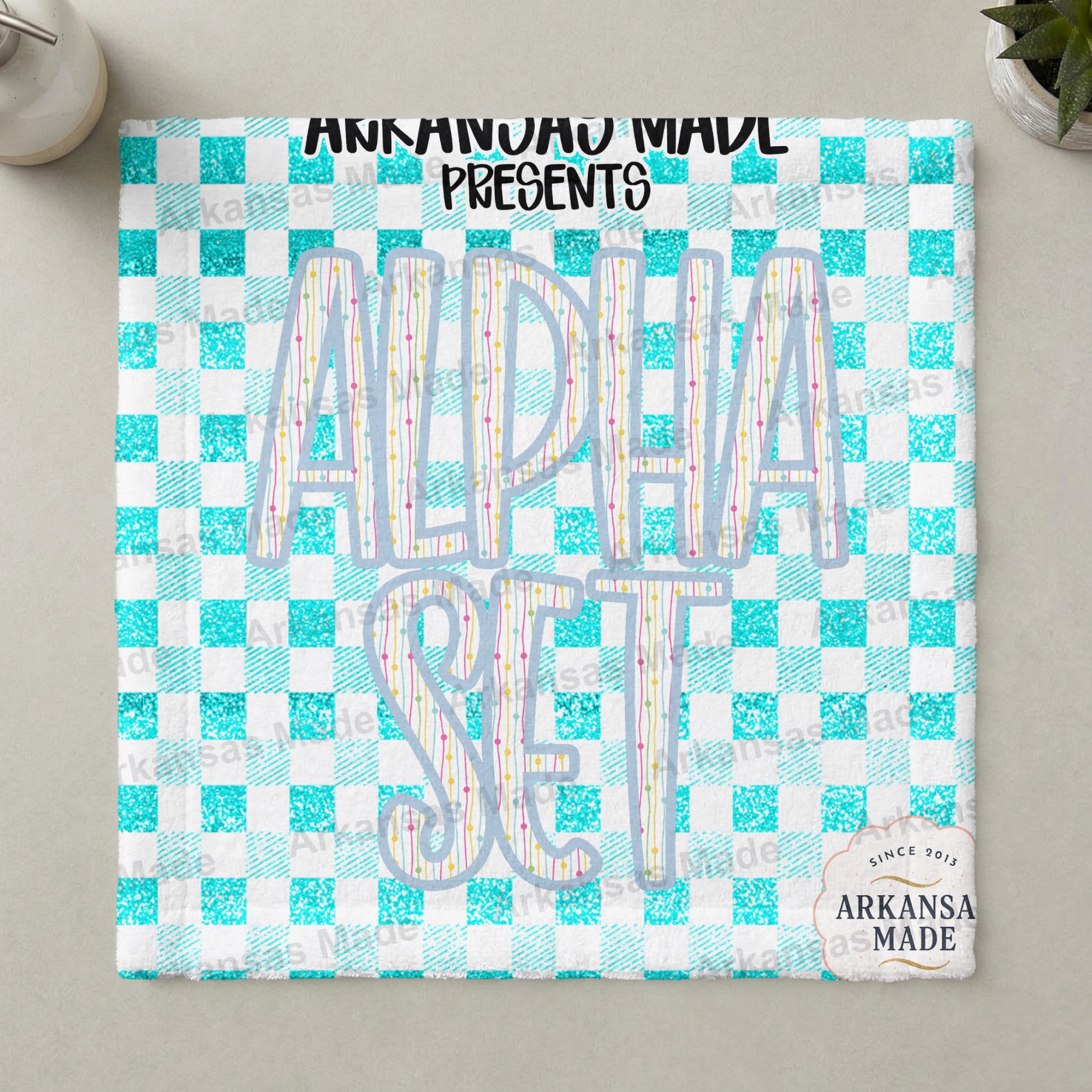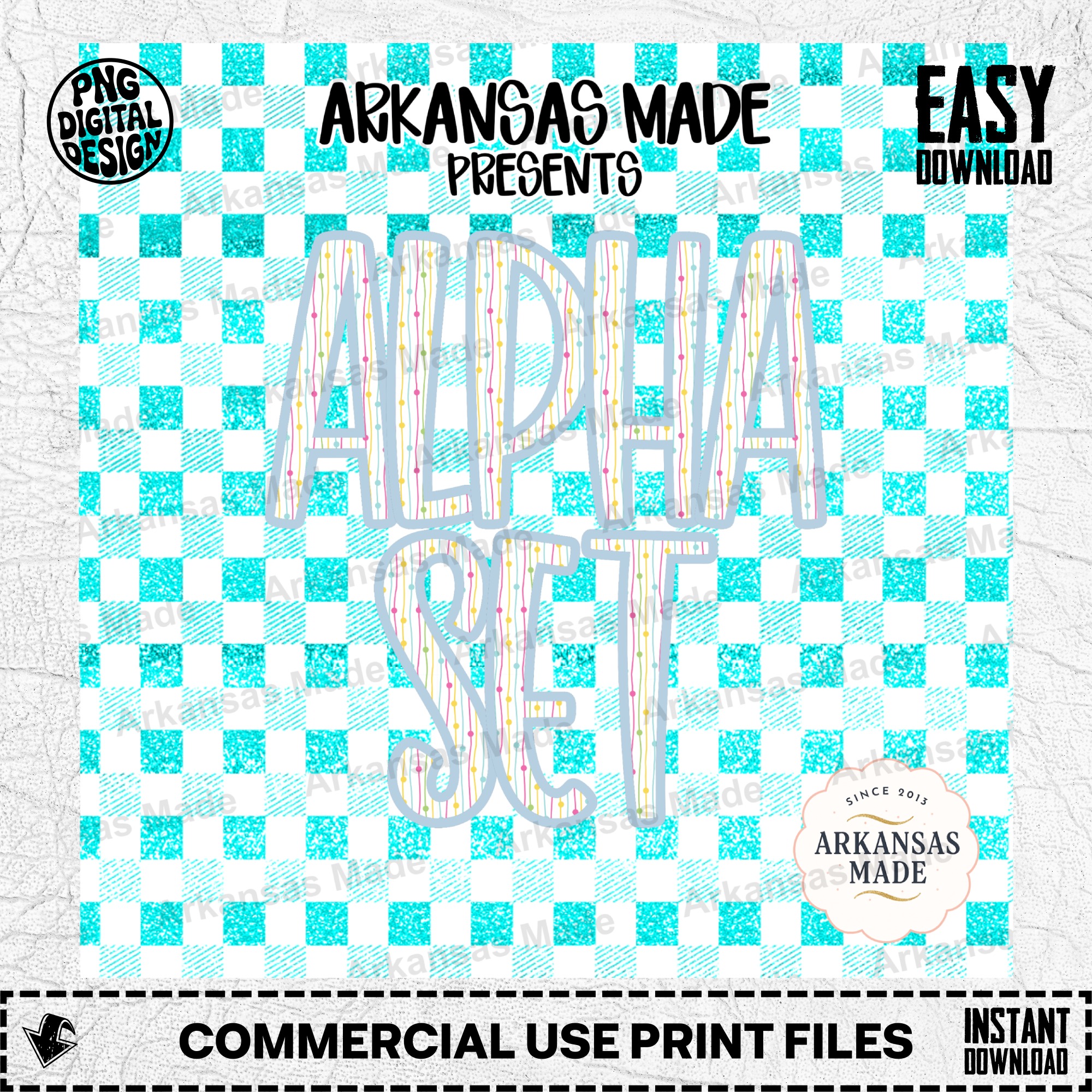
Digital Alphabet Set Aqua Gingham Alpha Download, Faux Glitter Dotted Line Letters PNG, Playful Sublimation Font Design
Unlock endless creativity with this cheerful Aqua Gingham Digital Alphabet Set, featuring playful faux glitter and dotted lines perfect for all your crafting projects and personalized designs! This vibrant Alpha Set brings a whimsical touch to any project, from custom party banners to delightful nursery decor. Ideal for digital artists, crafters, and DIY enthusiasts, these unique letters are designed to inspire your imagination. Perfect for creating custom gifts or adding a pop of color to scrapbooks, invitations, and more.